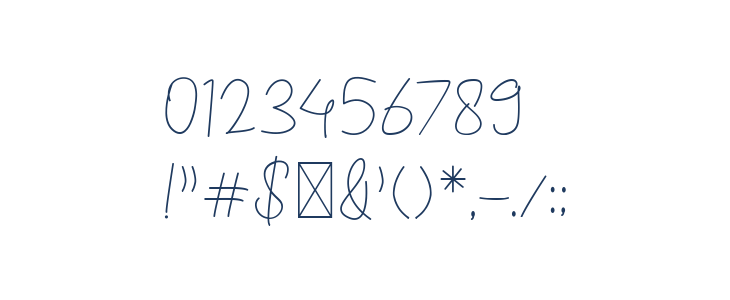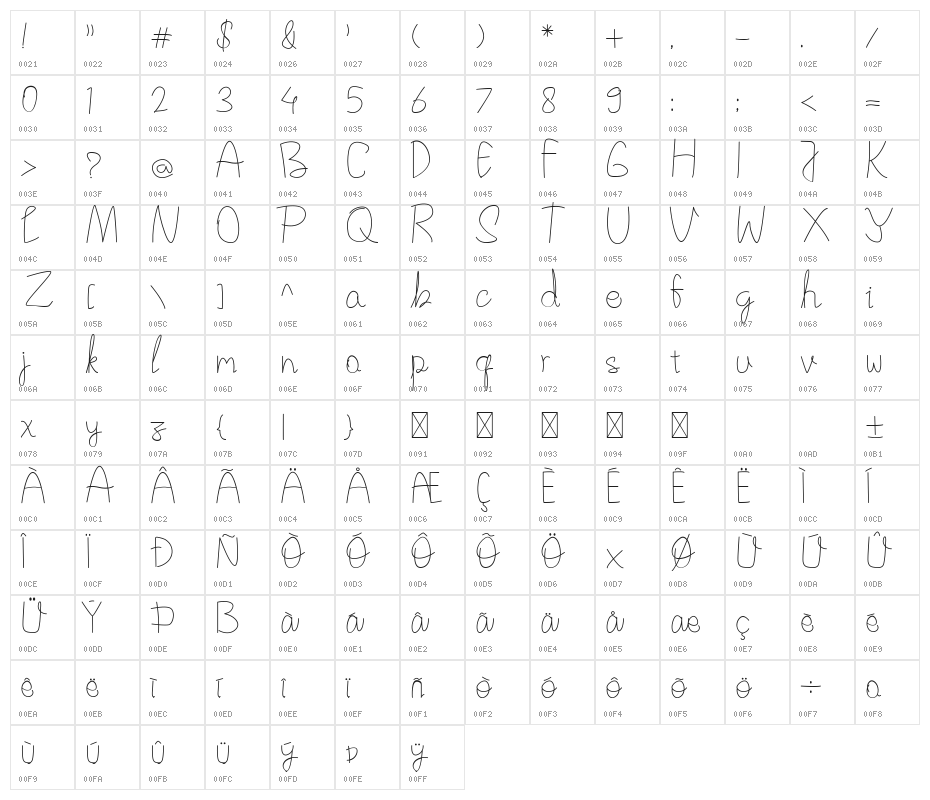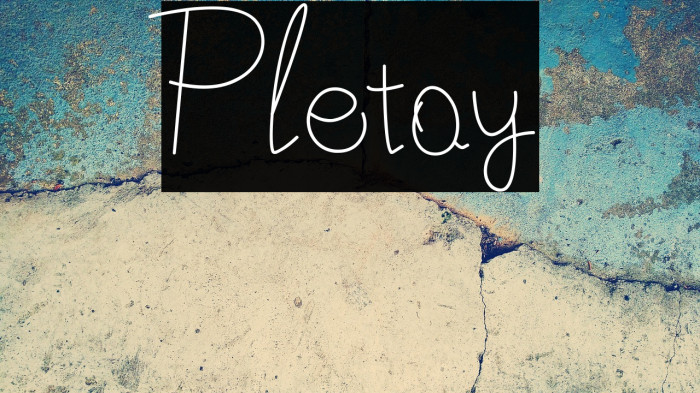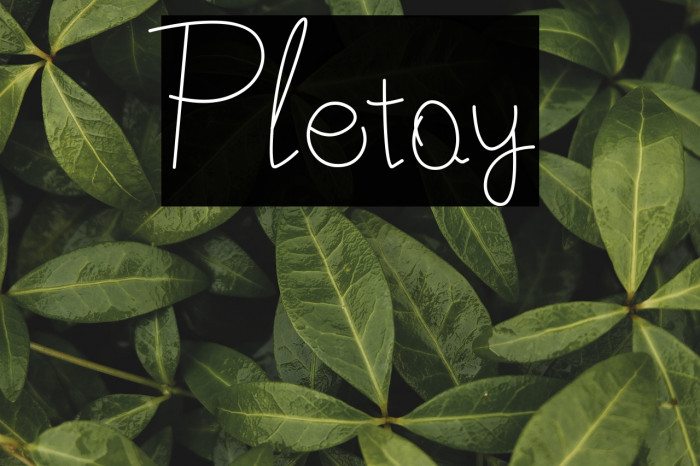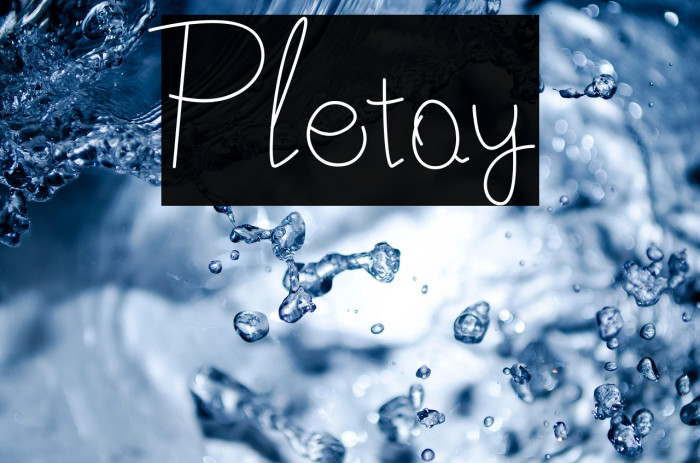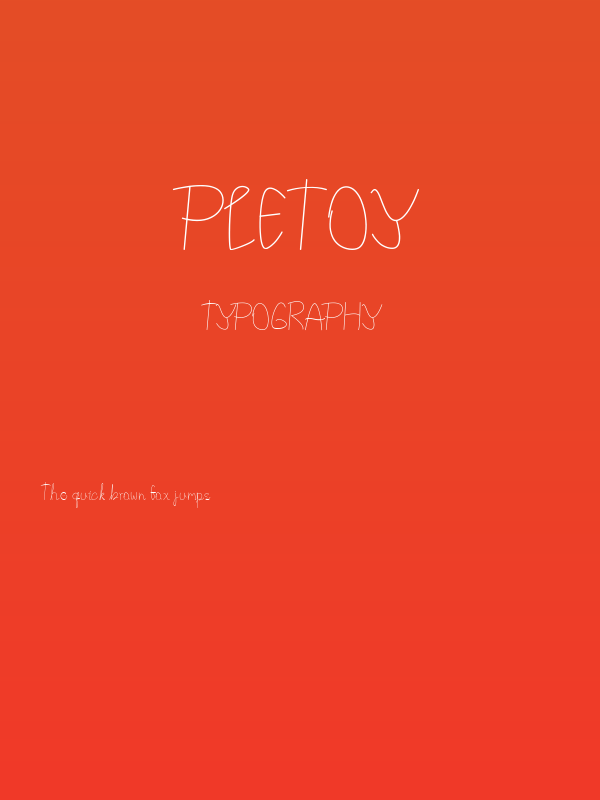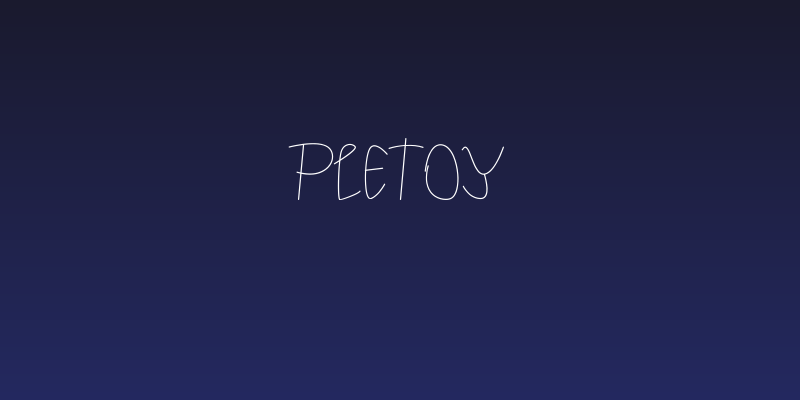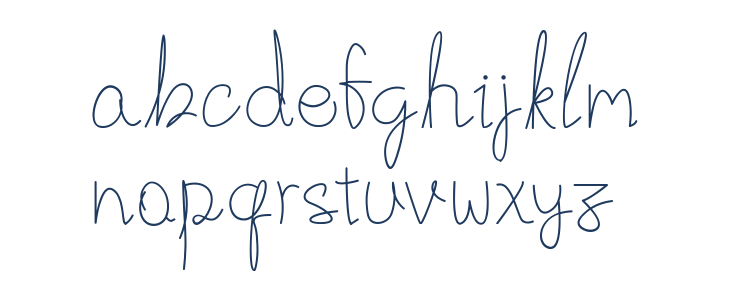
Pletoy Font
Pletoy Description
This font features a playful and whimsical handwritten style, characterized by its thin, flowing lines and slightly irregular letterforms. The uppercase letters are tall and narrow, with a casual elegance that suggests a personal touch. Lowercase letters maintain a consistent height, complementing the uppercase with a smooth, cursive-like appearance. Numbers and special characters follow the same fluid style, ensuring a cohesive look across all text. The overall design is light and airy, making it suitable for projects that require a friendly and approachable feel. Its unique charm lies in the subtle variations in stroke width, adding a touch of dynamism without sacrificing readability.
| Overall Style | Whimsical, Playful |
| Proposed Projects | Ideal for greeting cards, invitations, personal branding, and creative projects that require a friendly, informal touch. |